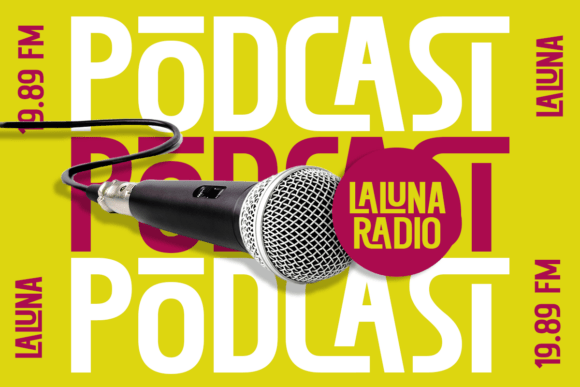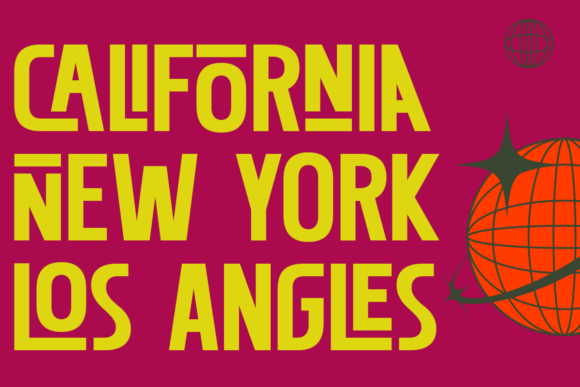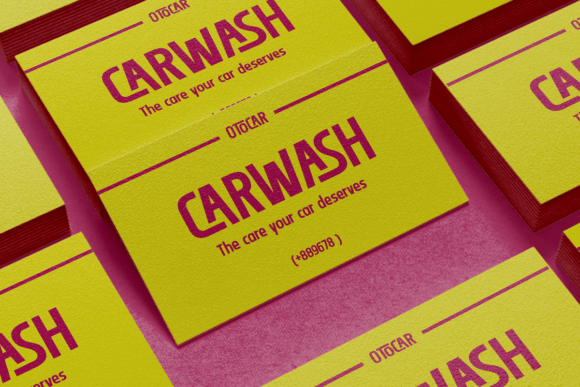
Introduction to Nevanty Font
Nevanty is a condensed ligatures sans serif font with a cheerful display font that combines boldness with a condensed style, making it perfect for adding a touch of personality to your designs.
With its friendly sans-serif design and an abundance of ligatures and alternate characters, and like a warm hug for your creative projects Whether you’re crafting inviting headlines, quirky logos, or delightful posters, this font will bring joy and charm to everything it touches.
Key Features of Nevanty Font
Why Choose Nevanty Font?
Nevanty Font offers exceptional quality and versatility, making it a valuable addition to your design toolkit. Whether you’re creating for personal projects or commercial use, Nevanty Font delivers professional results.